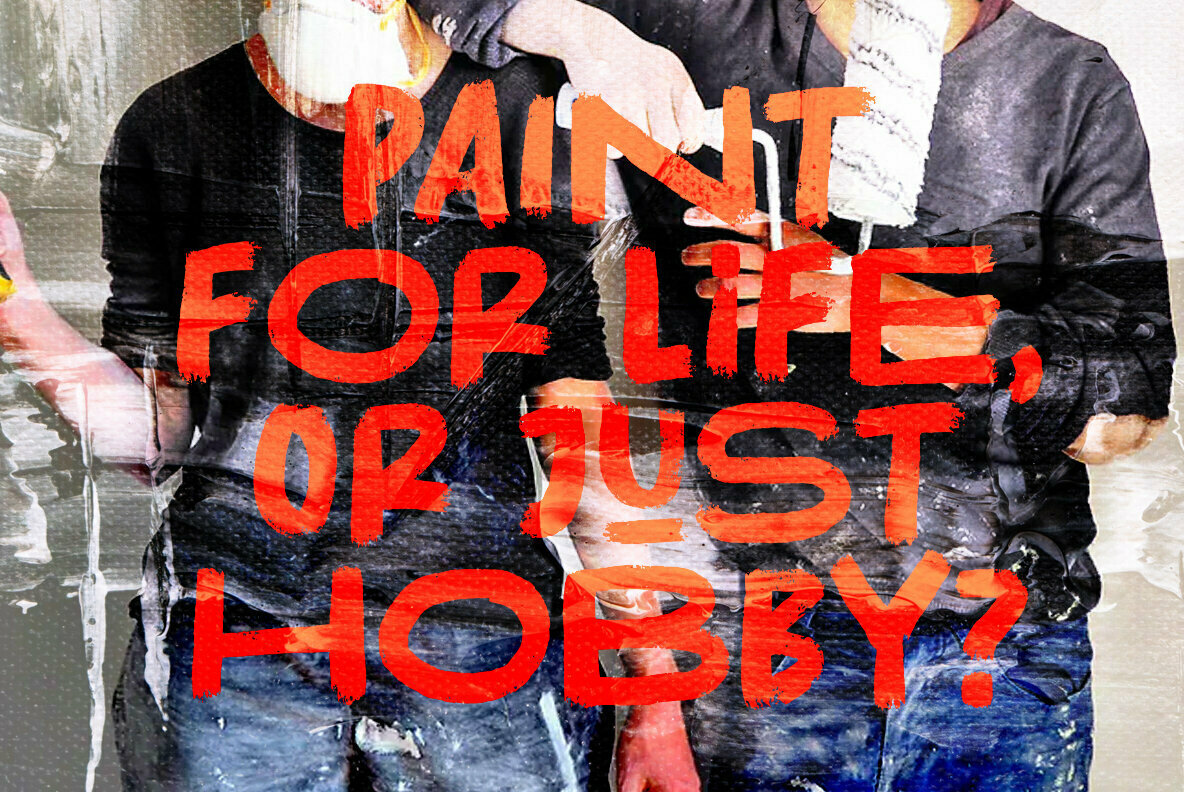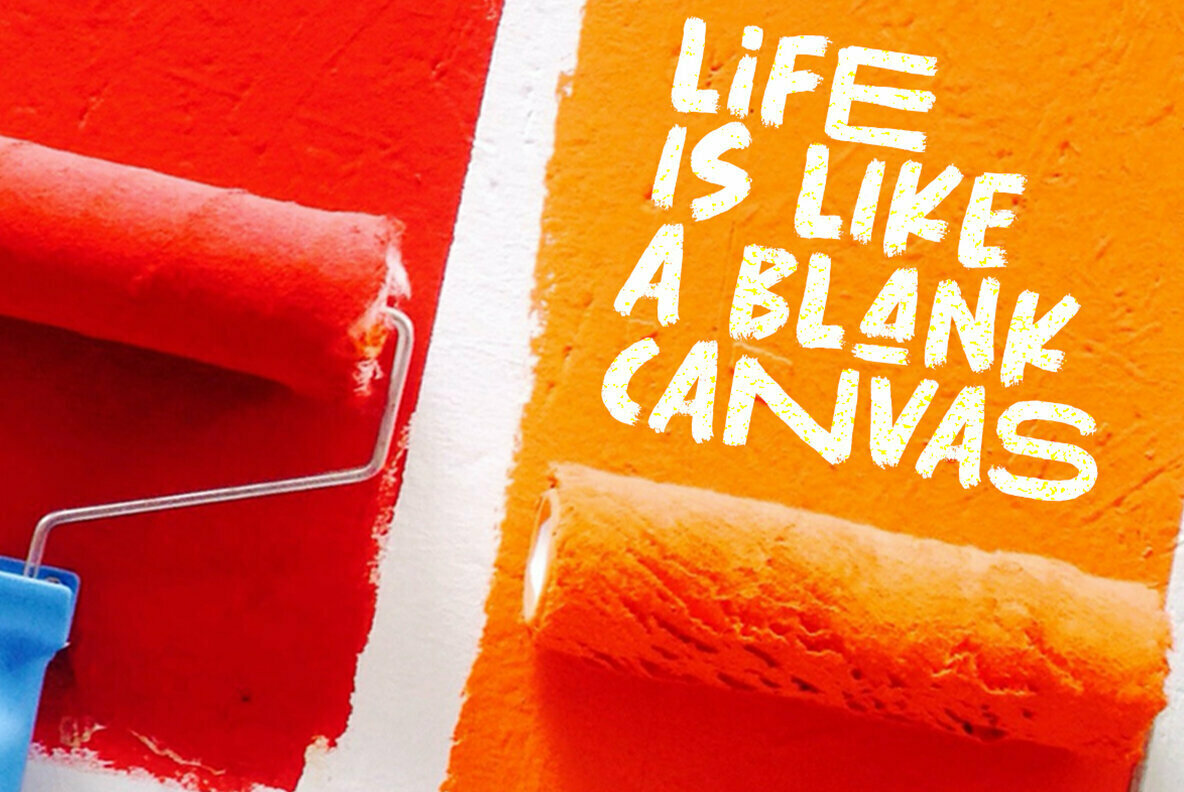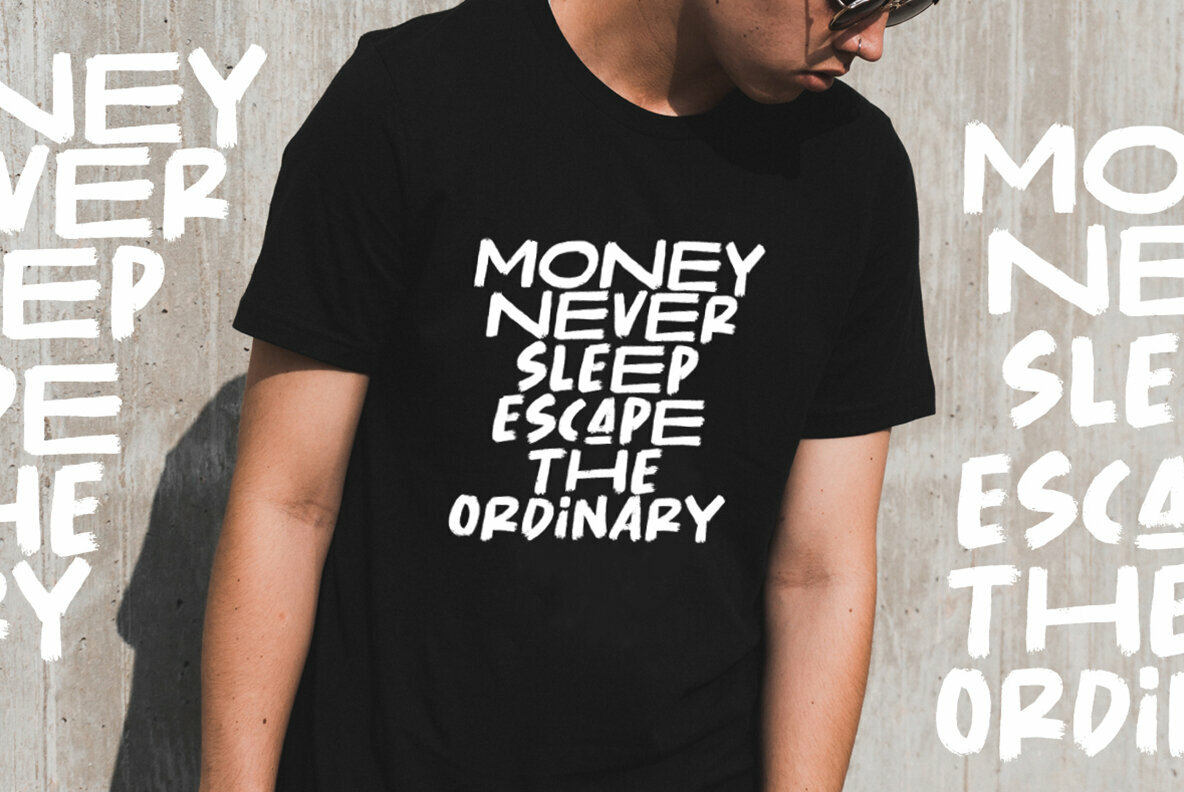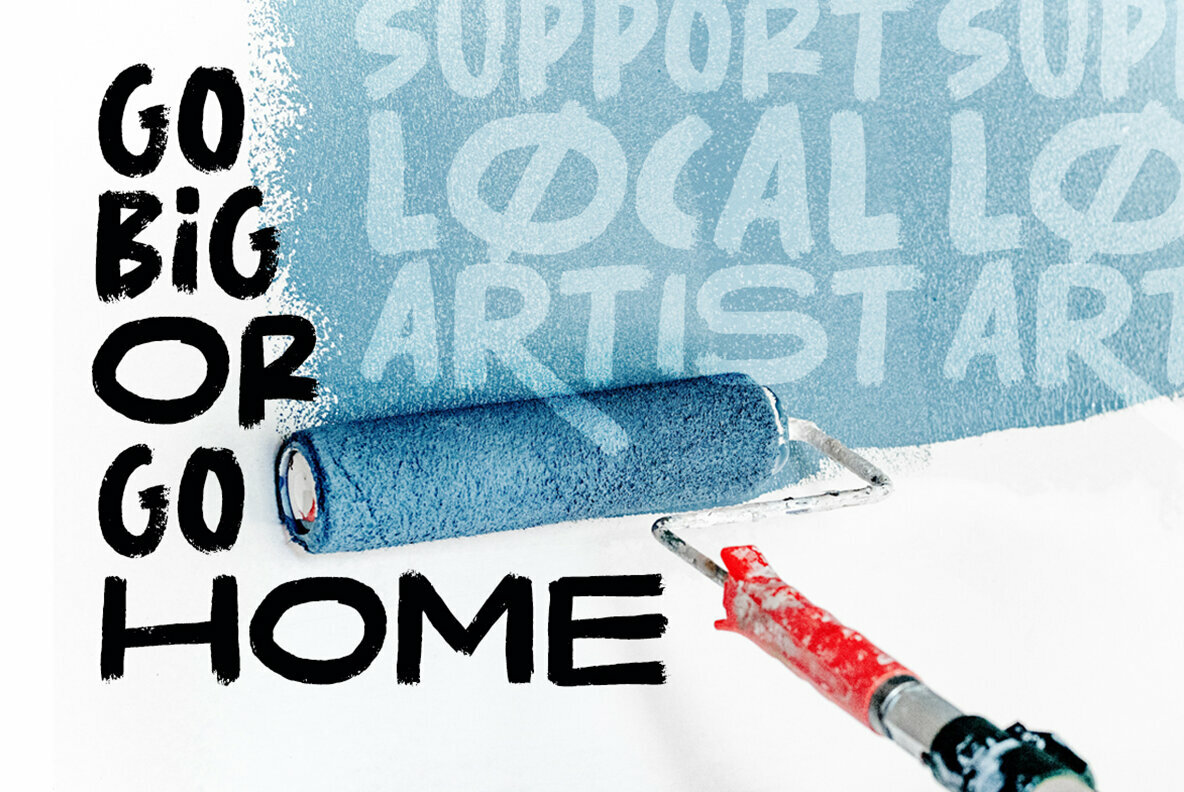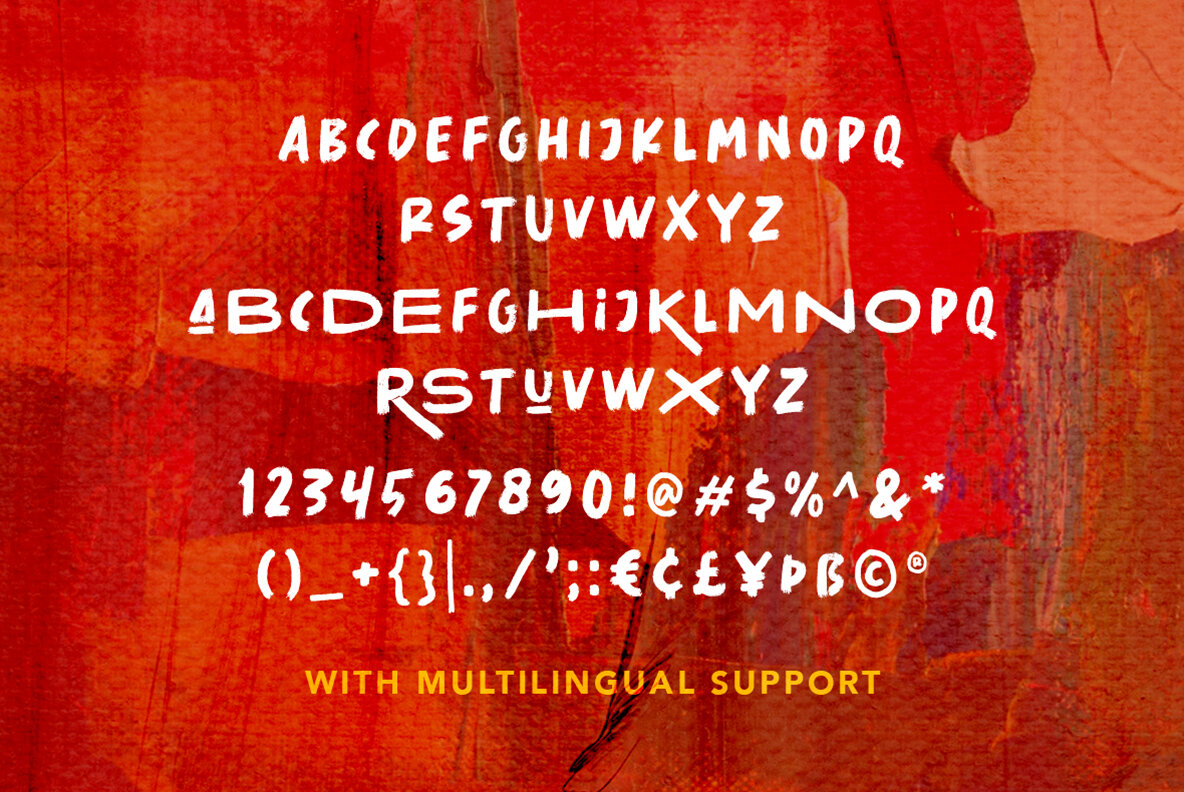
Roller Cores Font
Roller Cores Regular
Capturing the raw essence of paint rollers and dry brush strokes, Roller Cores distinguishes itself with its distinctive character design. This font brings an authentic artistic vibe, ideal for adding a creative edge to various projects. Its unrefined charm effortlessly attracts attention while maintaining versatility across design applications.Roller Cores: A Unique Paint Roller-Inspired Font